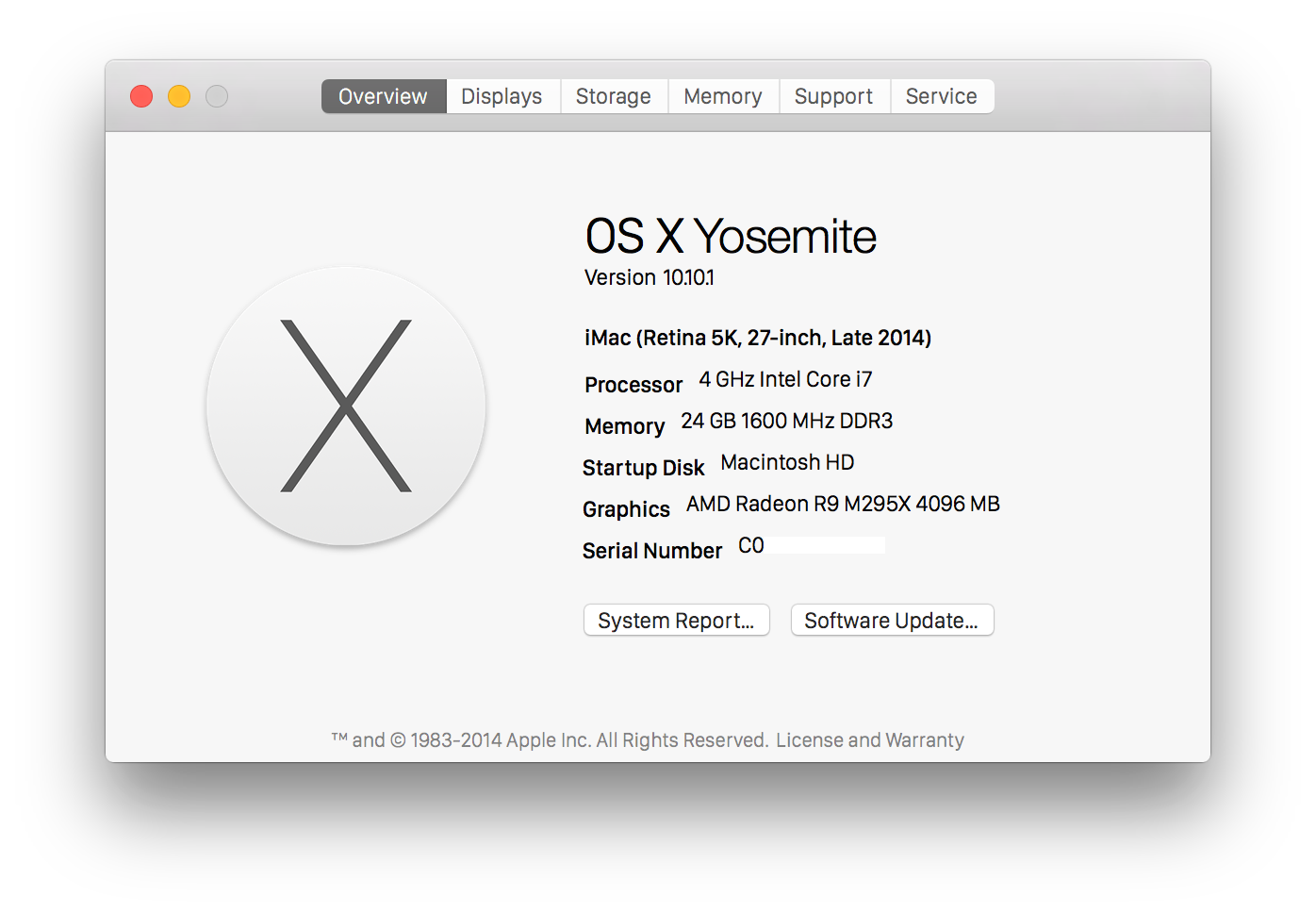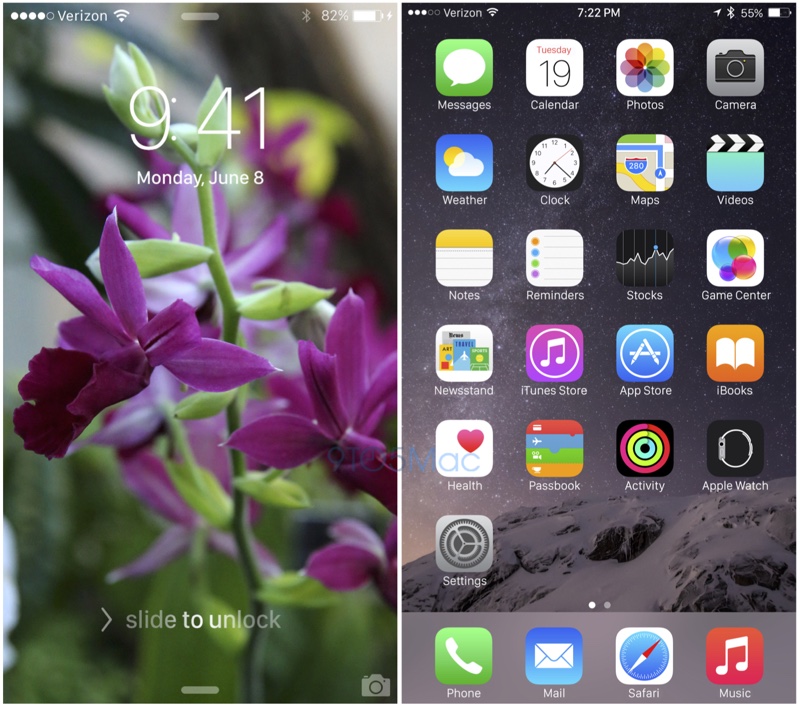
Even Apple's own engineers say this font looks rough on a non-retina screen. How are people missing this?
Because the next update will probably coincide with Apple Retina LED Display, and break compatibility with non-retina laptops.
only half sarcastic.
Oh, What a terrible move! This font looks so "Android-ish". Praying it never happens. There is nothing wrong I can find with Helvetica Neue on OSX and IOS. In fact it looks really classy and contemporary. Please Apple, don't do this.
Judging by the clock, this is a pretty bad idea... :rolleyes:
I'd rather keep Helvetica. :(
I honestly can't tell the difference, nothing to be proud of I guess but at the same time it makes me smile reading all these loving and hating comments :).
Thanks for the information. I suppose Apple should get rid of extensions, 3rd party keyboards and actual notifications as well as those are too much like Android?
anything that is less thin...
than that current iOS font looks like an improvement to me.
Same goes for OSX. Hated that thin font from the start. And those "looks like Android" comments. I wouldn't be surprised if Android would get a horrible thin font in the next version because Google thought when Apple does it, it must be sexy and reverse that decision in the next one afterwards.
Oh, What a terrible move! This font looks so "Android-ish". Praying it never happens. There is nothing wrong I can find with Helvetica Neue on OSX and IOS. In fact it looks really classy and contemporary. Please Apple, don't do this.
What exactly is "Android-ish"? Roboto, like San Francisco is very similar to Helvetica and Din. Helvetica Neue is a great print font.
Oh, What a terrible move! This font looks so "Android-ish". Praying it never happens. There is nothing wrong I can find with Helvetica Neue on OSX and IOS. In fact it looks really classy and contemporary. Please Apple, don't do this.
It's not easily readable, for example. Neue is also ugly, but that part is subjective.
SF provides much better readability. Has nothing to do with Android.
To my eye, it looks rather similar to Roboto (the default font in Android)...I understand that Apple likes to have product lines to have somewhat similar interface elements so this doesn't surprise me. I guess I need to see it for real rather than some mockup to make a decision.
Please no. That font would look terrible on iOS. If anything, give us a choice!
I can confirm that you will have a choice.
San Francisco font will be the standard font in iOS9 but, if you don't like that font and wish to stick with the original iOS font, don't update from iOS8.
I tried using San Francisco on my Mac but didn't like it. I felt that the tracking was too tight. When you replace Helvetica with another font, you're still using all the metrics that Apple uses for Helvetica, so it looks bad in places.
I agree it does look rather odd in some places, which is one of the reasons I hope 10.11 uses it as the default despite my already using it to replace Helvetica Neue. For the most part it still looks better than Helvetica, but takes a little getting used to.
How about going back to the Jobs-era trend of innovating instead of copying Microsoft and Google?
It would be interesting to see how much of this is caused merely by marketing. Apple no longer run ads on a regular basis that show where they're ahead of their competitors. They just show a product and let their competitors bash them.
After all, one of Apple's ads focused solely on the MagSafe adaptor. Another where PC is playing "Pick-A-Vista".
They could run similar ads with iPhone: Free, quick updates on iOS vs months of waiting on Android. Point out Android 5.0 adoption rates. / iPhones come with a slow motion-camera and iMovie which work together beautifully. / Touch ID lets you get into your phone quickly, pay for things in-app and now, with iPhone 6, let's you buy things in-store. / etc
A hint that this may be happening is on the WWDC invite, under the ominously worded tag line, "the epicenter of change," the font used for "WWDC15" is San Francisco.
I personally liked the font on the first beta of iOS7, which was basically half the thickness of what it is now.
Why not let us choice the system font? Similar like Notes on iOS 6